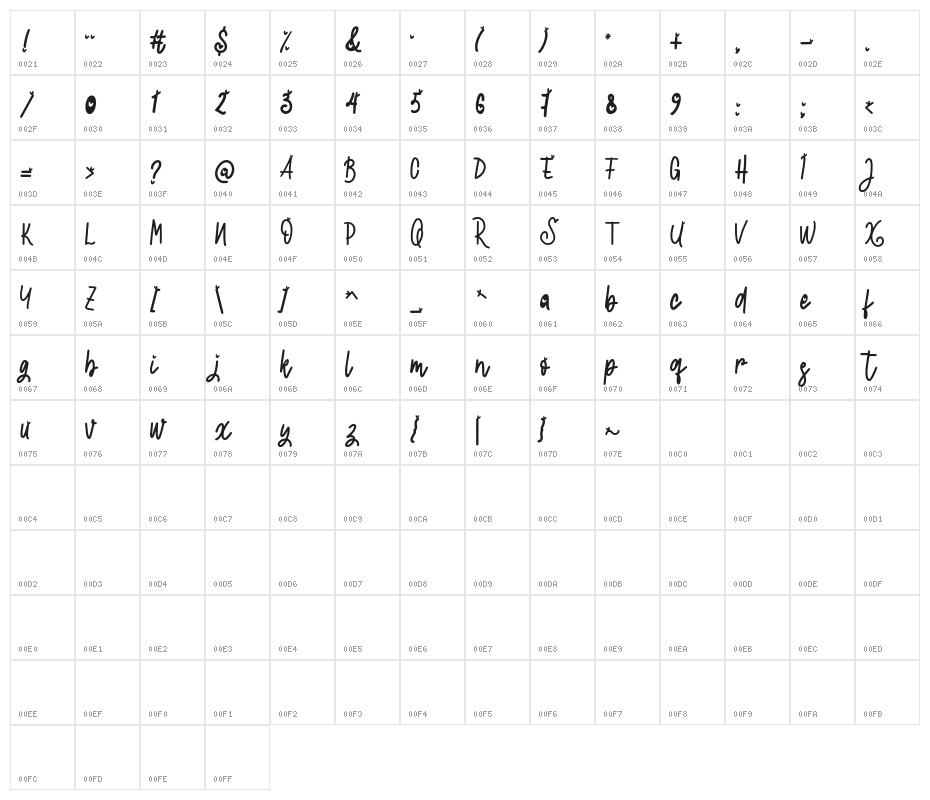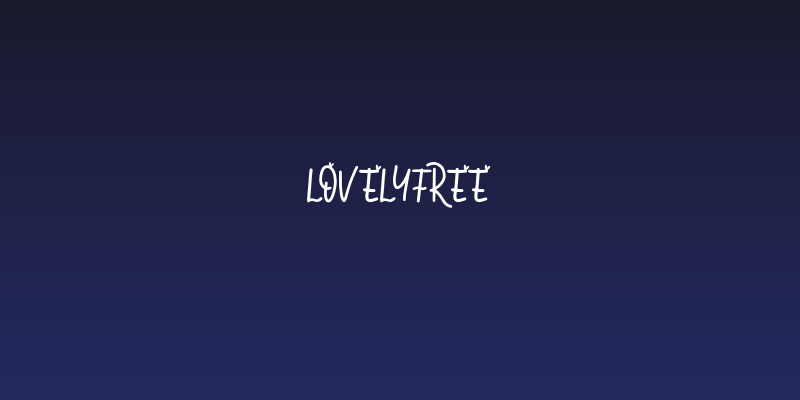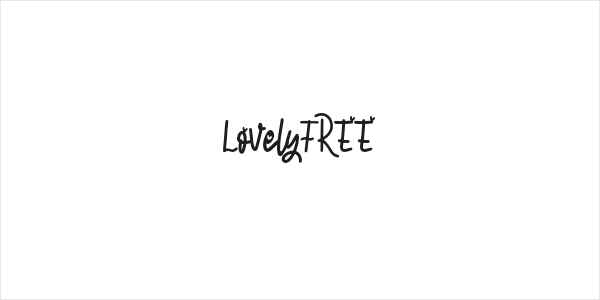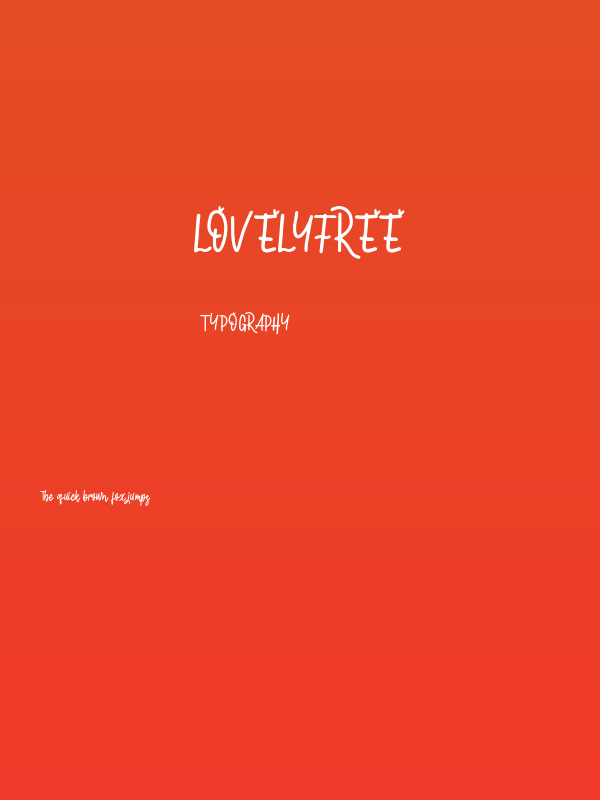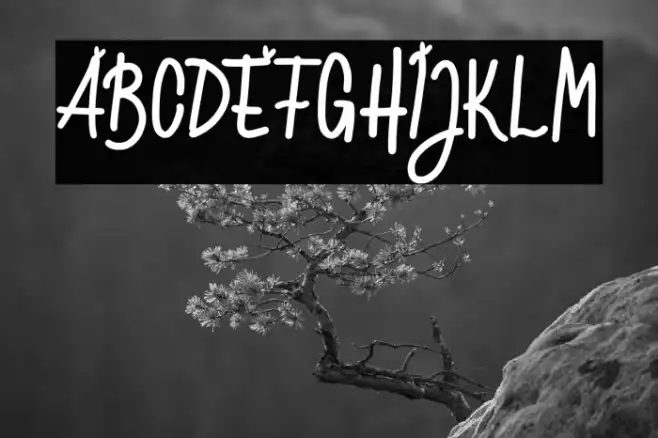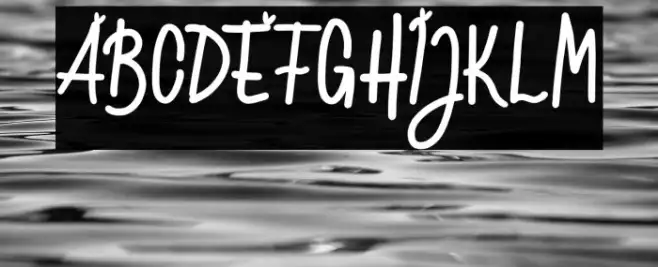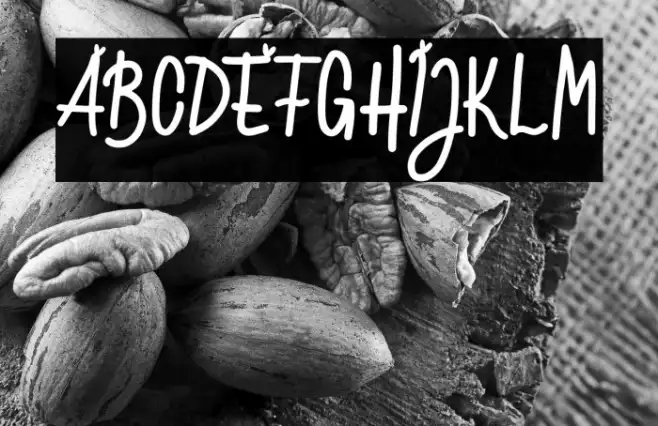
LovelyFREE Font
LovelyFREE Description
This font exhibits a playful and whimsical style, characterized by its handwritten appearance. The uppercase letters are bold and slightly irregular, giving them a lively and dynamic feel. The lowercase letters maintain a consistent flow, with some characters featuring unique loops and curls that add to the font's charm. Numbers are bold and rounded, complementing the overall aesthetic. Special characters are creatively designed, maintaining the font's playful nature. This font is perfect for projects that require a personal and informal touch.
| Use Case | Logos, Headlines, Informal Text |
| Proposed Projects | Ideal for greeting cards, children's books, playful branding, and social media graphics. |